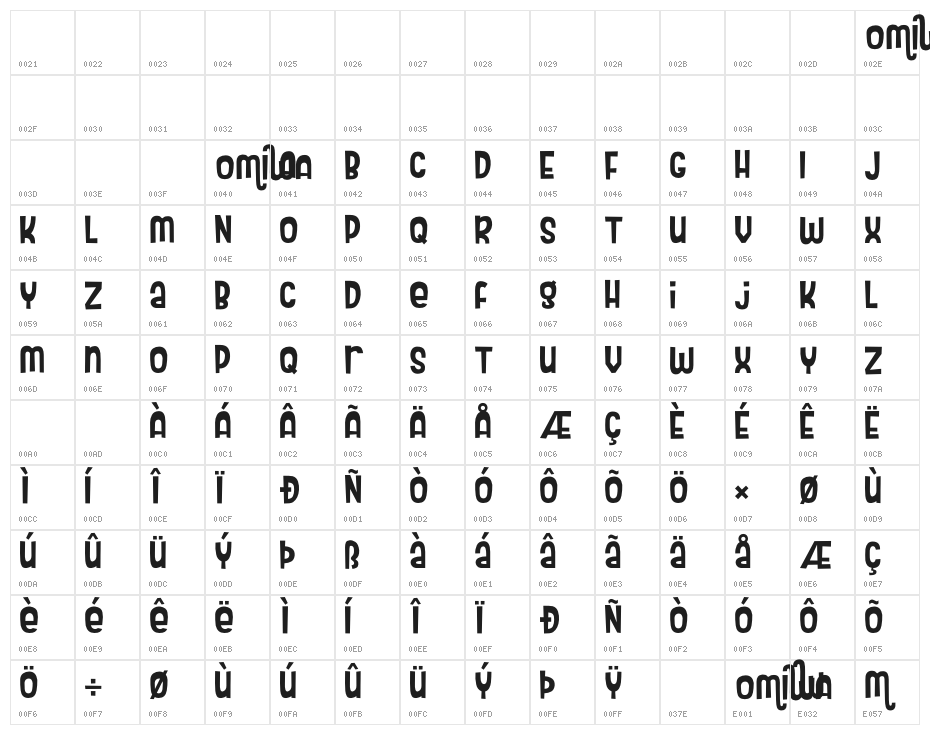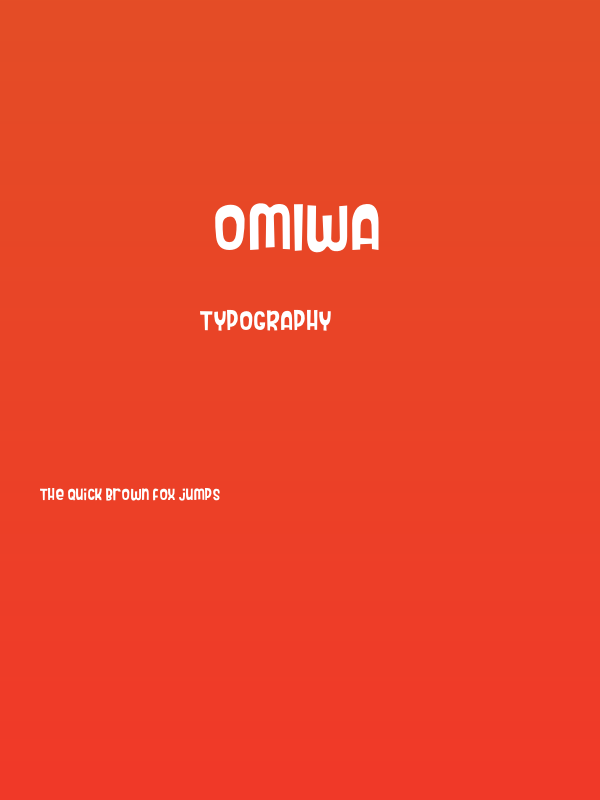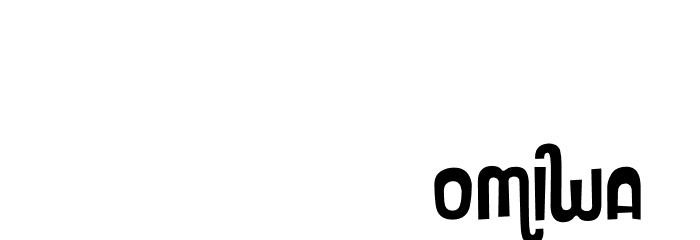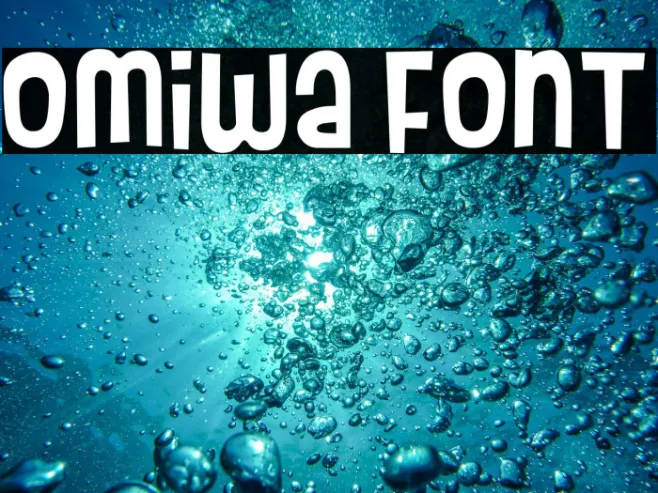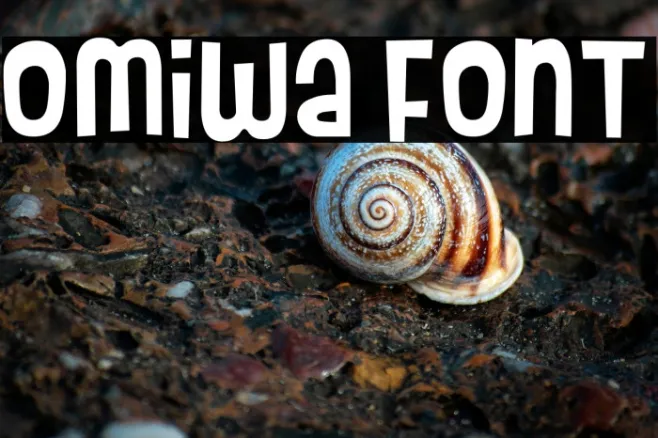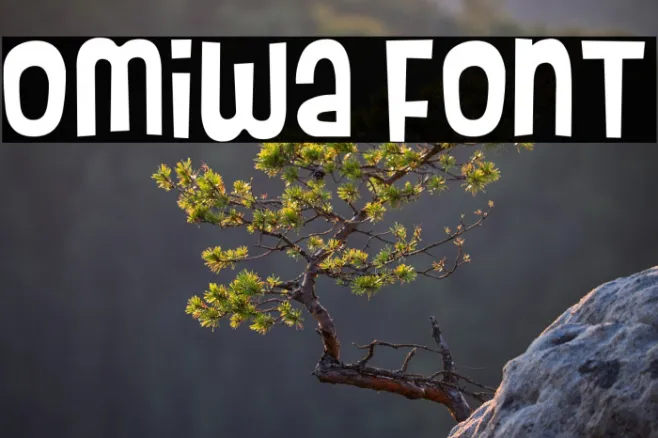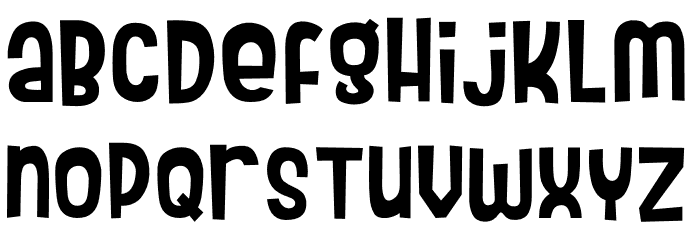
Omiwa Font
This font features a playful and bold design with a unique character shape that combines both rounded and angular elements. The uppercase letters exhibit a strong presence with slightly curved edges, while the lowercase letters maintain a consistent style that complements the uppercase. The numbers and special characters follow the same design principles, ensuring a cohesive look across all glyphs. The font's quirky and artistic style makes it stand out, offering a modern twist on traditional letterforms. Its distinct personality is suitable for creative projects that require a touch of whimsy and boldness.
| Proposed Projects | Ideal for branding, posters, children's books, and creative digital media. |